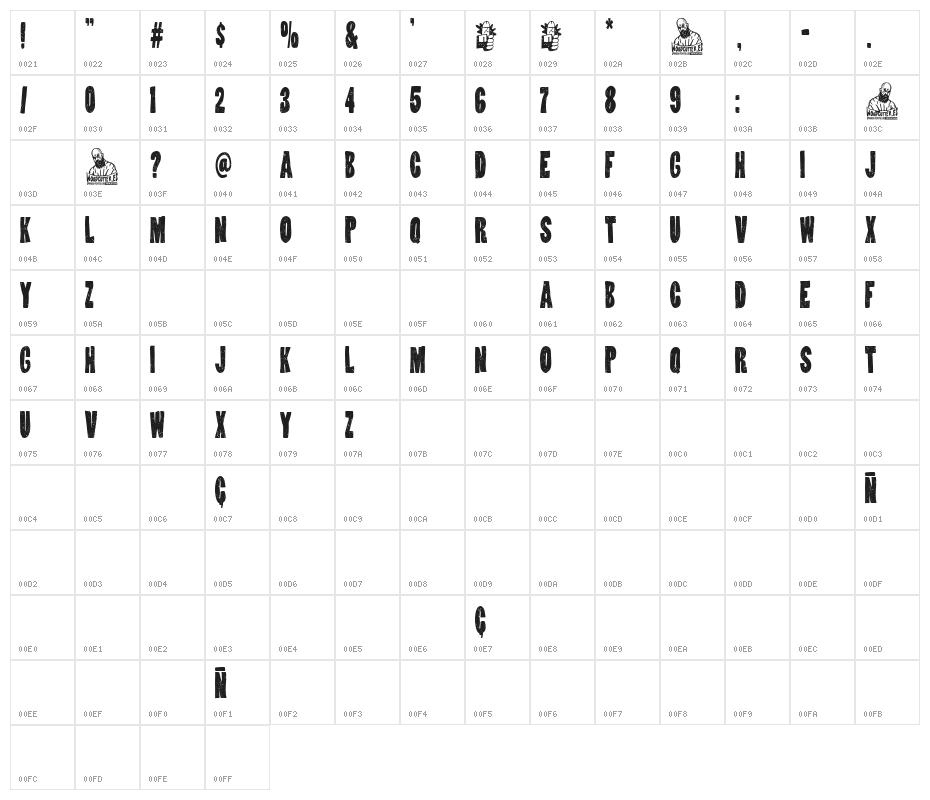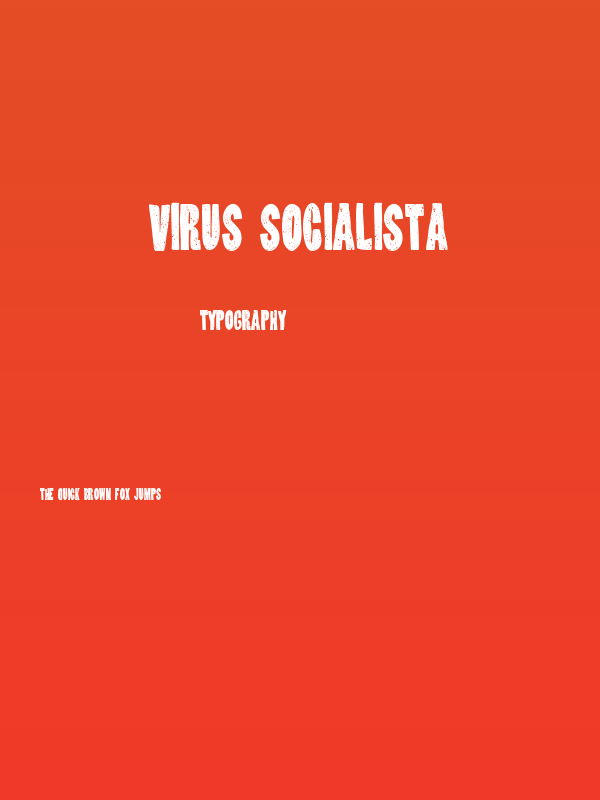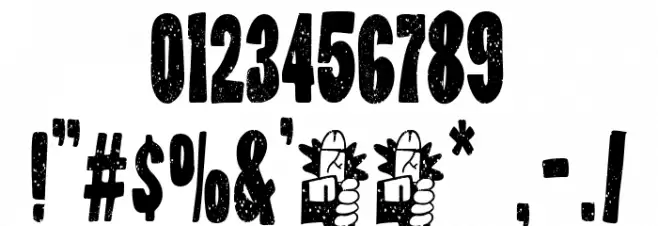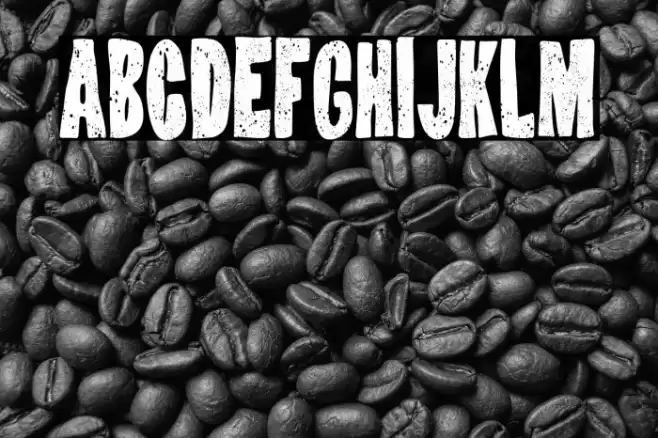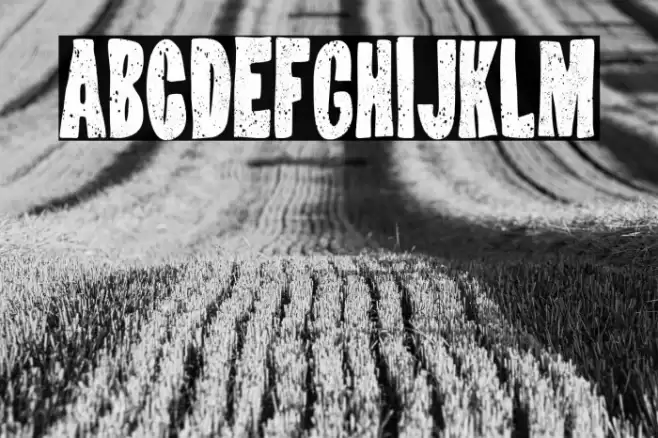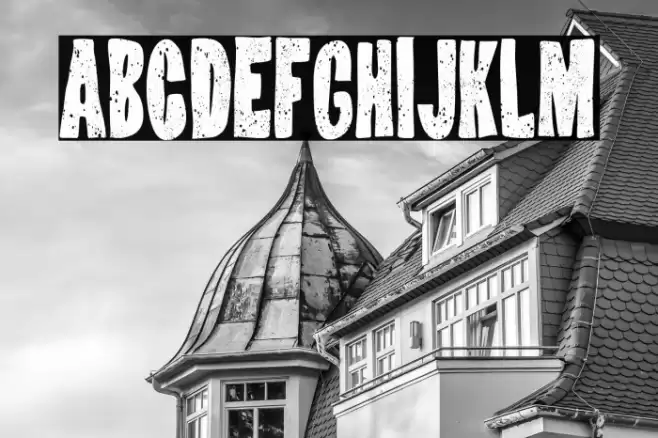
Virus Socialista Font
Virus Socialista Description
This font features a bold and distressed style, characterized by its rough texture and uneven edges, giving it a vintage and rugged appearance. The uppercase and lowercase letters maintain a consistent weight, creating a strong visual impact. The numbers and special characters follow the same distressed pattern, adding to the overall cohesive look. The font's boldness and texture make it suitable for designs that require a strong, eye-catching presence. Its unique style can add a touch of personality and character to any project.
| Proposed Projects | Ideal for posters, album covers, branding, and any project needing a bold, vintage aesthetic. |